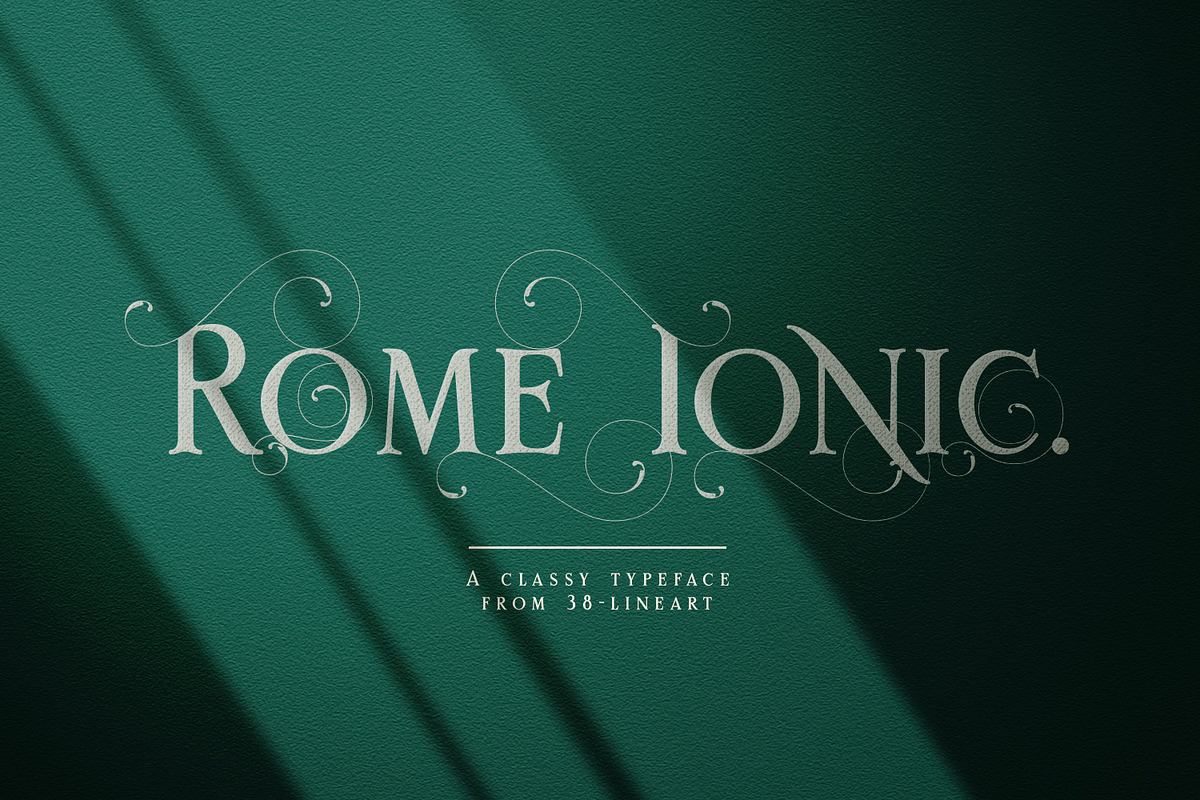
Rome Ionic Font Free Download is a sophisticated serif typeface inspired by classical Roman architecture and timeless typographic tradition. With its stately presence, crisp lines, and refined curves, Rome Ionic is perfect for editorial design, luxury branding, book titles, logos, and historical or academic-themed projects.
This font combines strength and grace, offering a distinctive visual style that feels both traditional and contemporary. Rome Ionic includes uppercase and lowercase characters, numerals, punctuation, multilingual support, and is fully compatible with Mac and Windows systems.